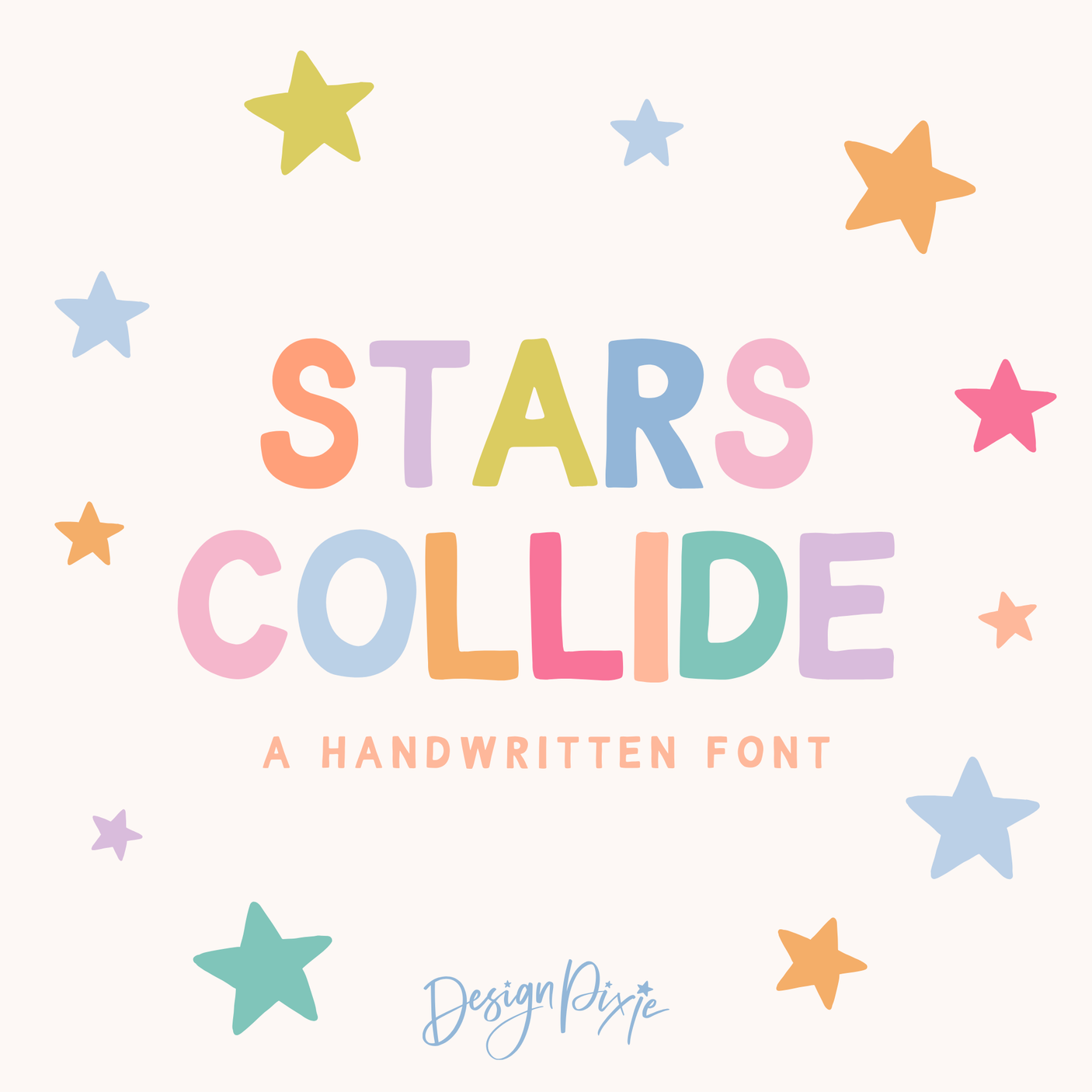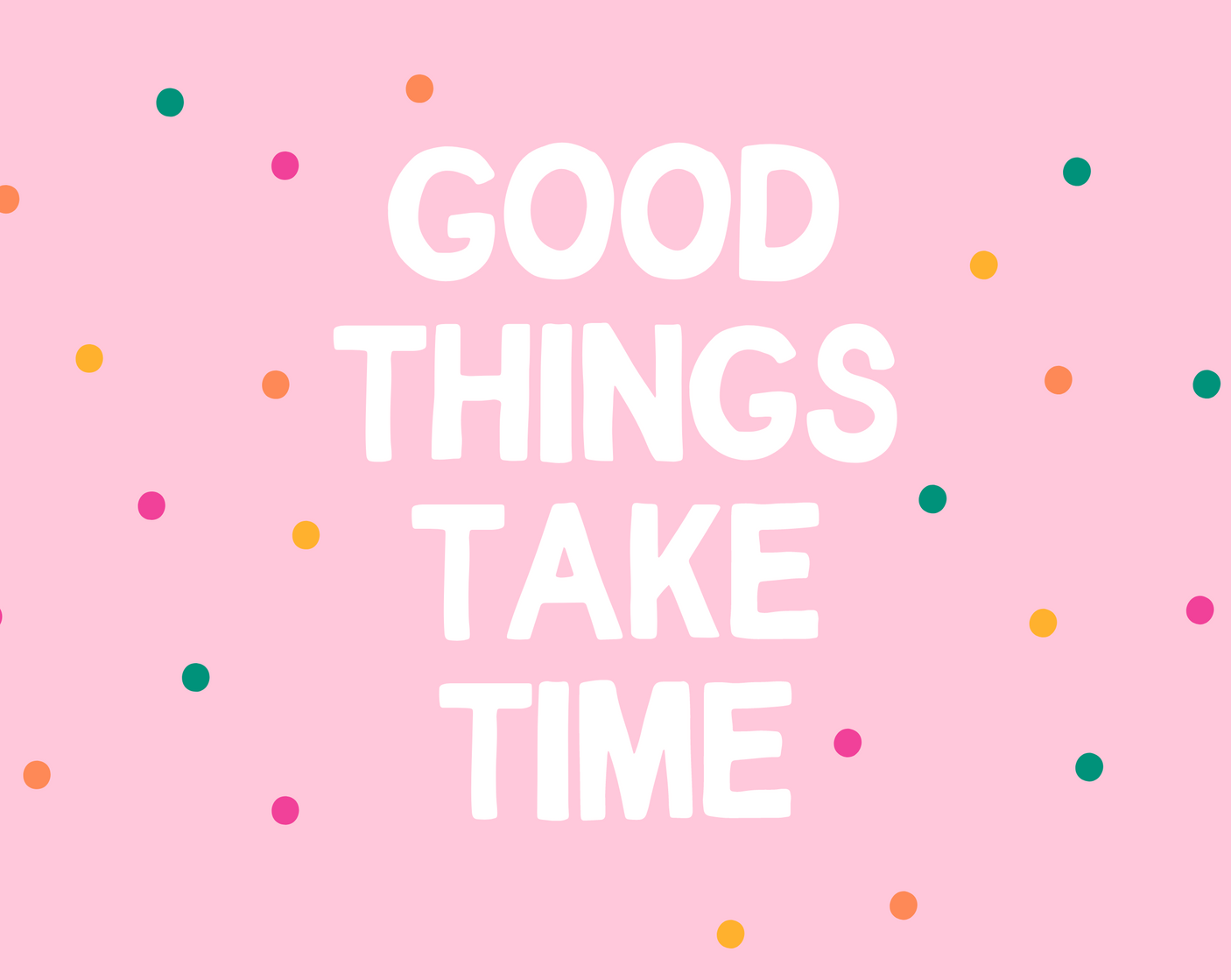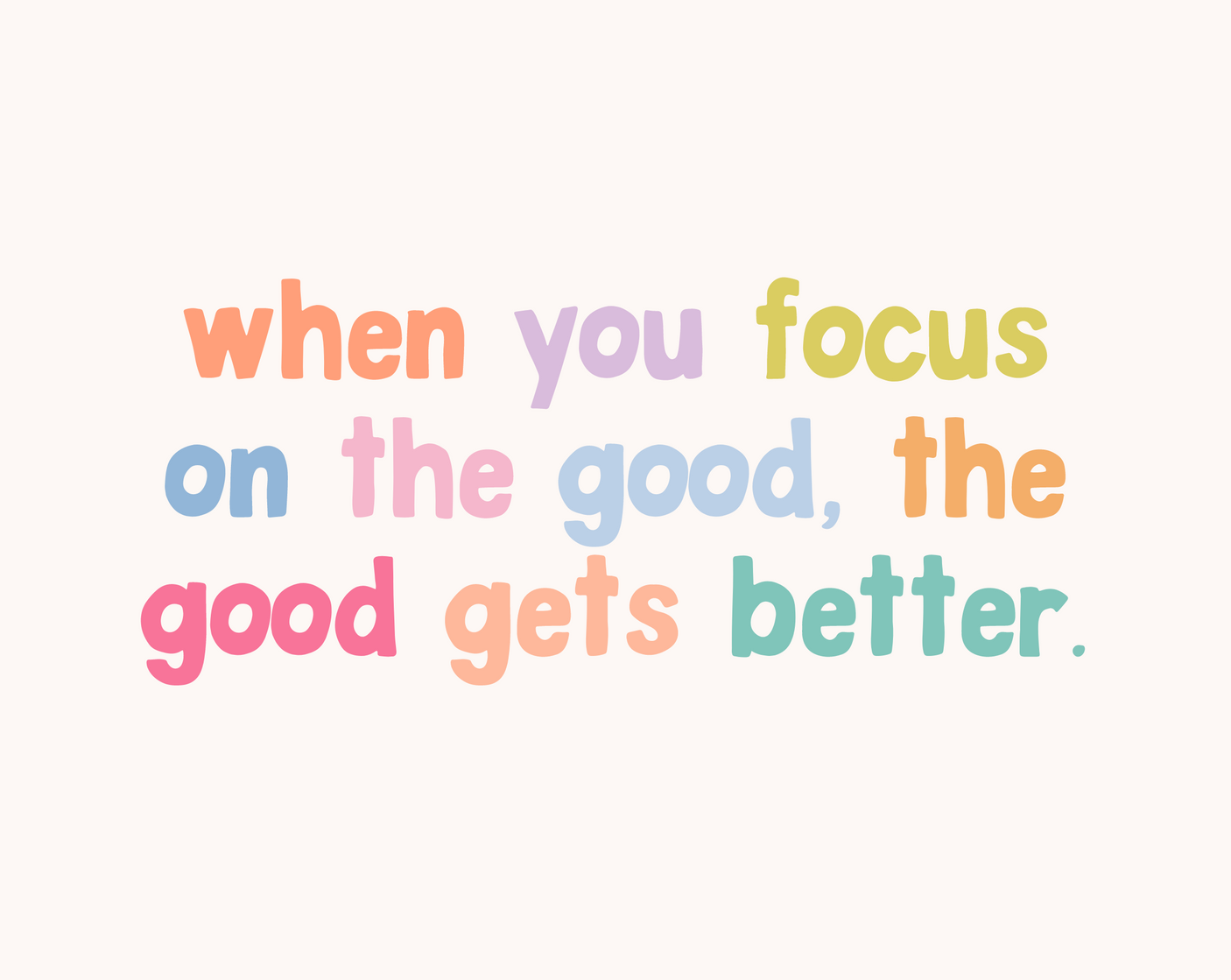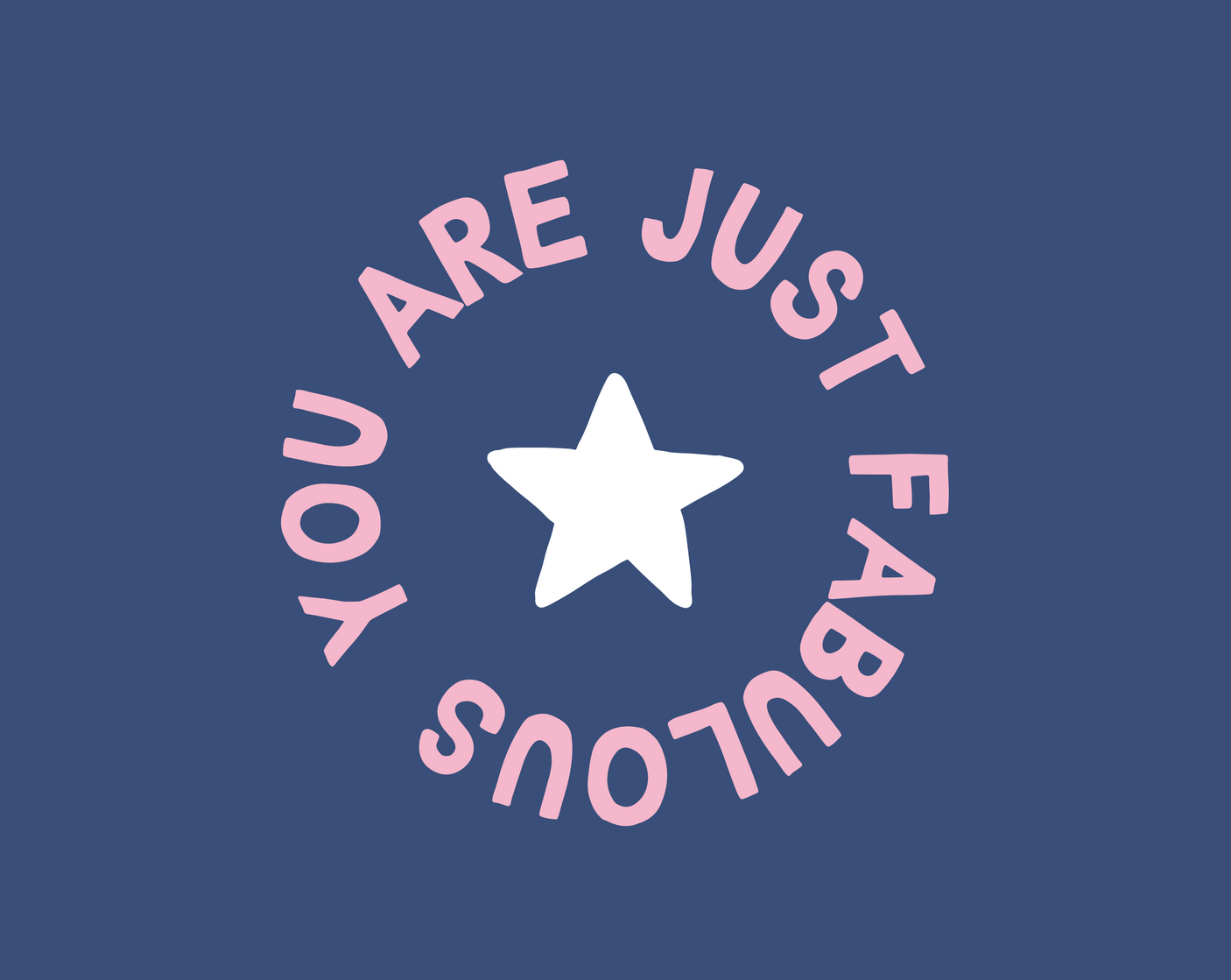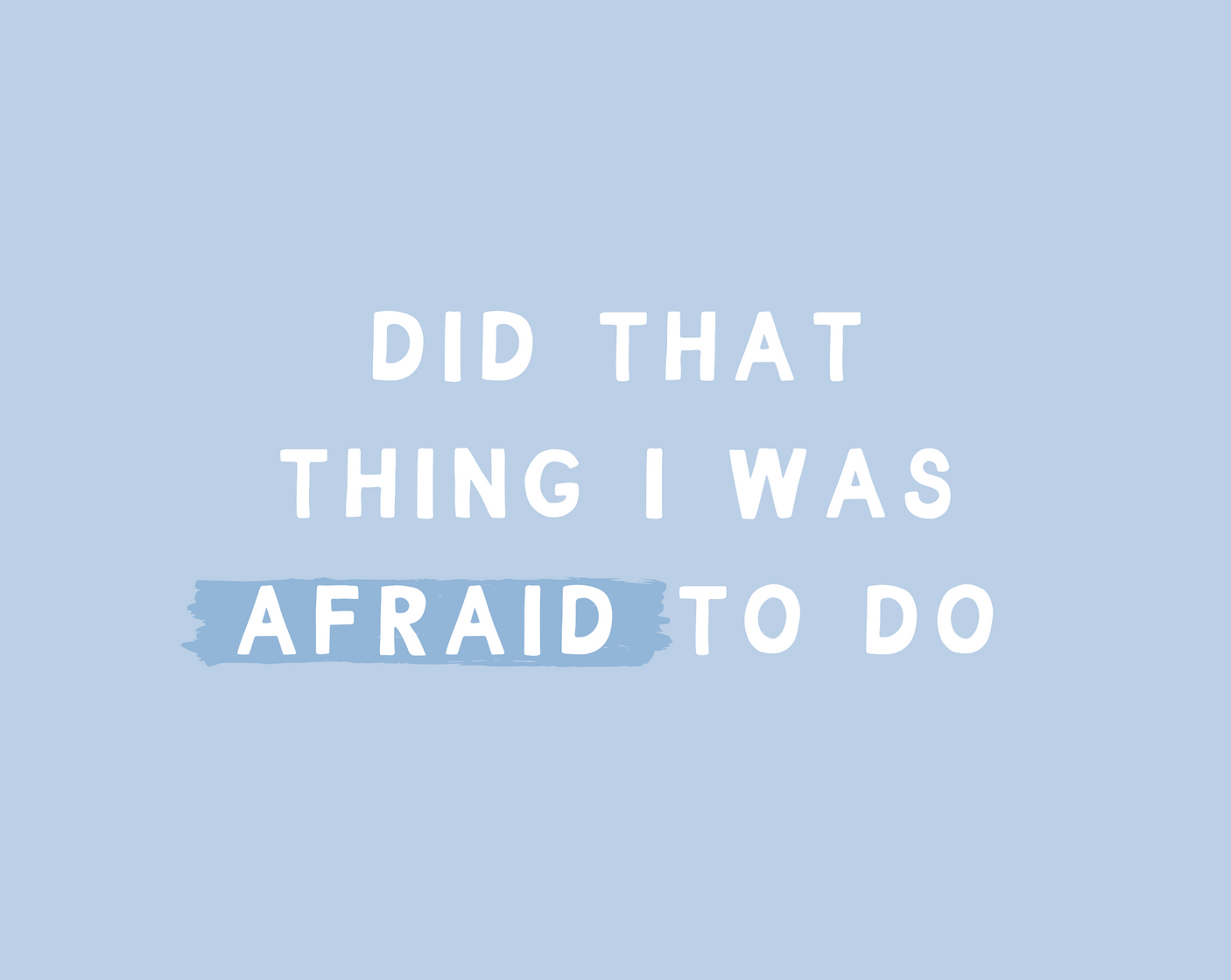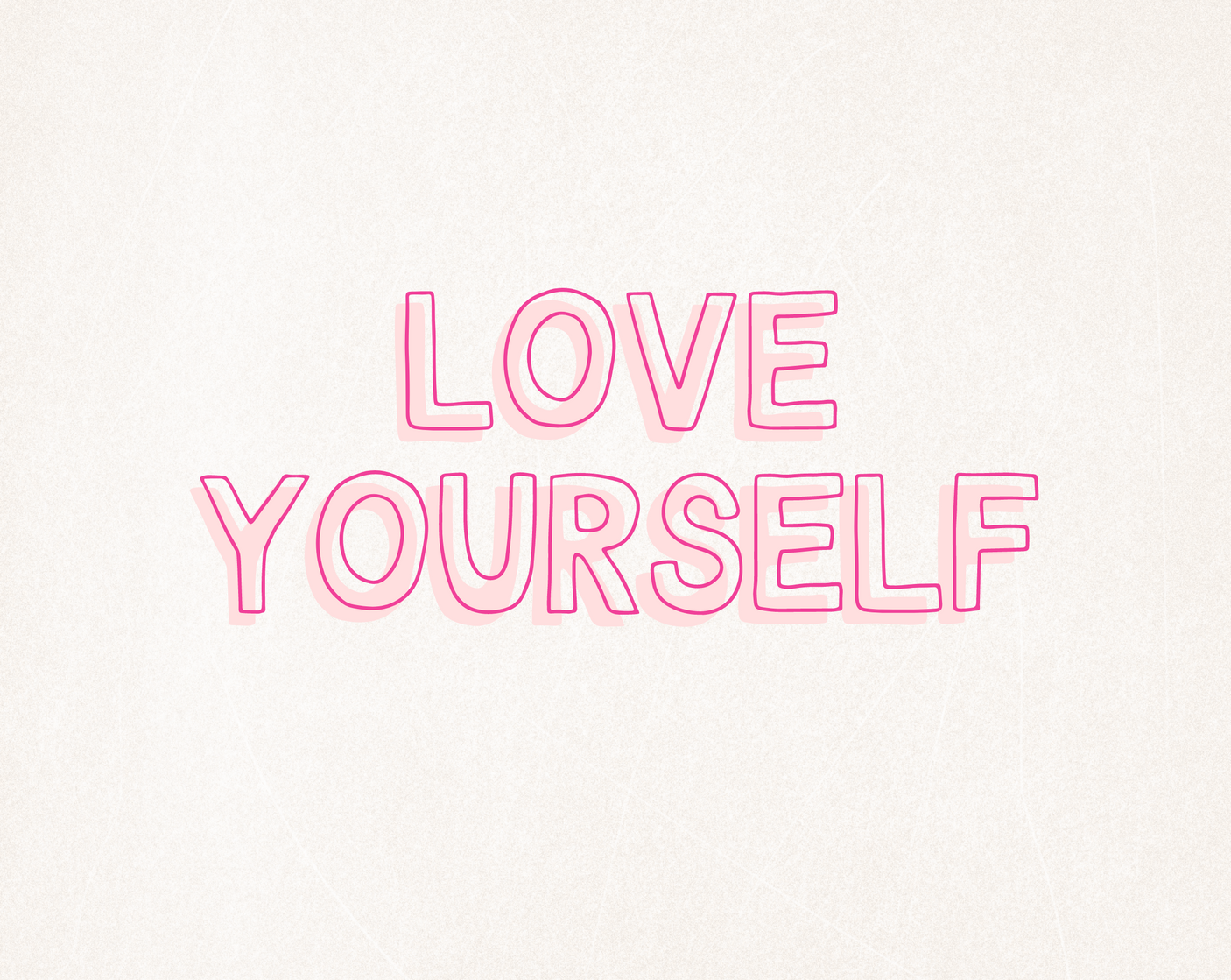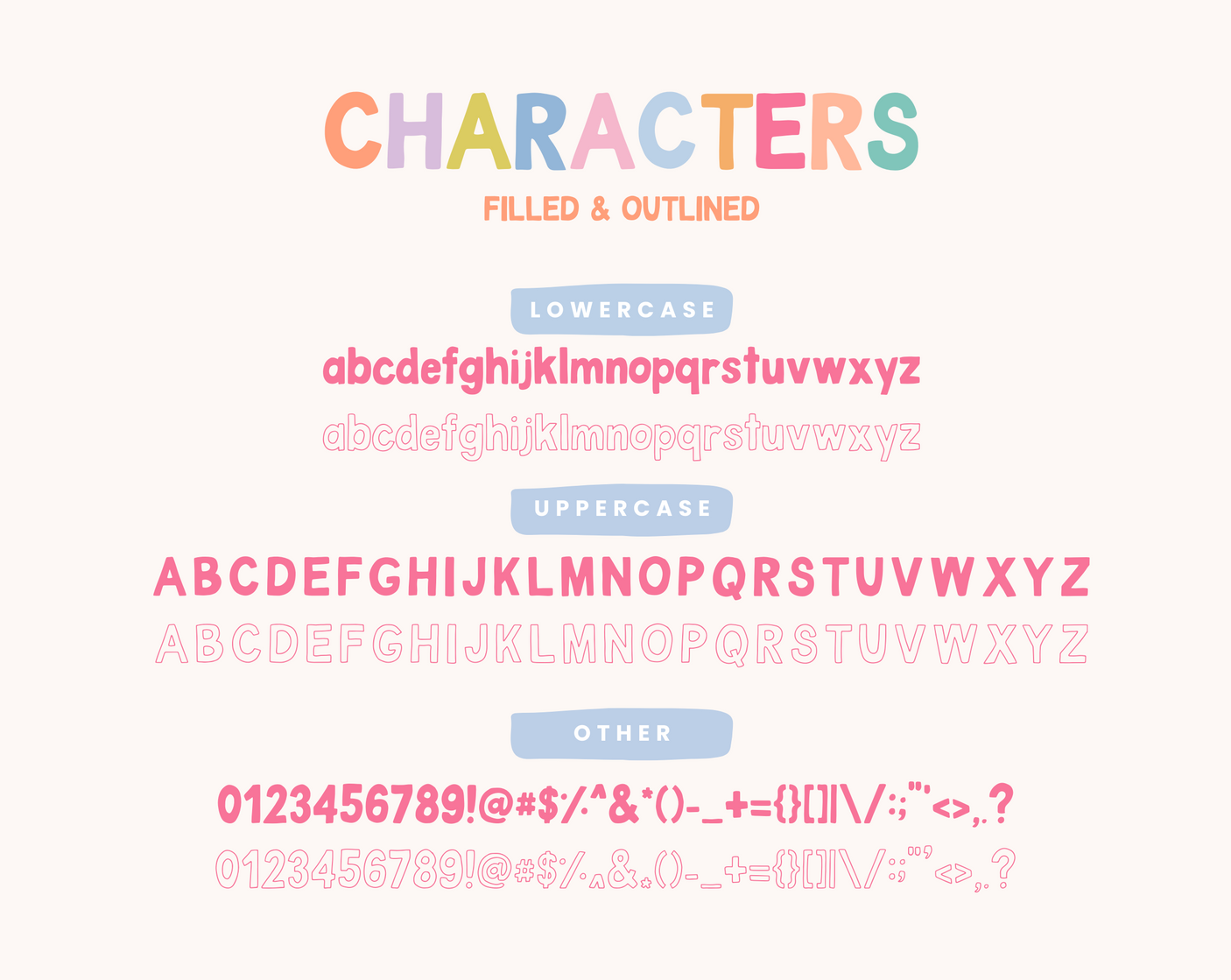
Stars Collide Font
Bring a twinkle to your designs with the Stars Collide font! This cute handwritten font comes in both filled and outlined versions, offering you the flexibility to create a wide range of projects. Whether you're working on Procreate, Cricut, or Canva, Stars Collide adds a whimsical touch to your text, making it perfect for anything from social media posts to DIY crafts.
Stars Collide is part of the playful fonts collection. The outlined version of the font allows you to add creativity to your designs, making your text truly stand out. The filled version, on the other hand, provides a bold and cohesive look, perfect for clear and impactful messaging.